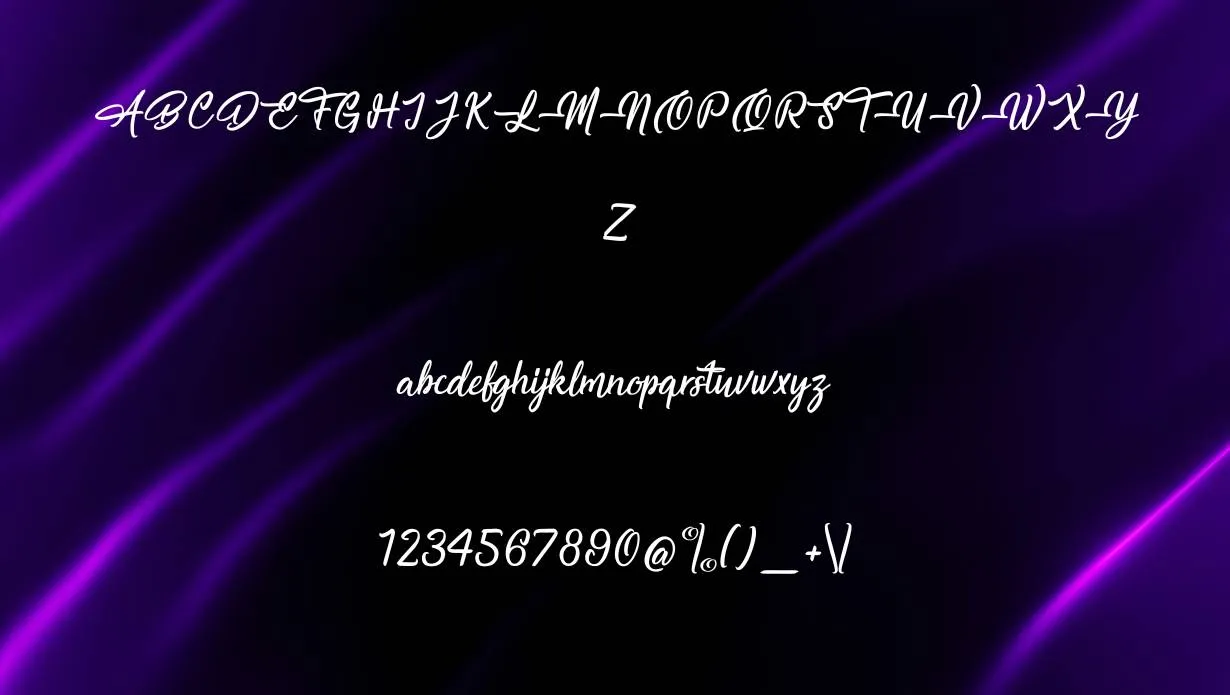
The Magnificent Supernatural font is a gateway to a world of mystery and magic. Perfect for projects with a fantasy theme, this font adds an enchanting touch to your words.
Imagine using it for book covers, fantasy game designs, or anything that involves supernatural elements. The intricate details of the Magnificent Supernatural font turn your words into a captivating story, inviting the reader into a realm of imagination and wonder.